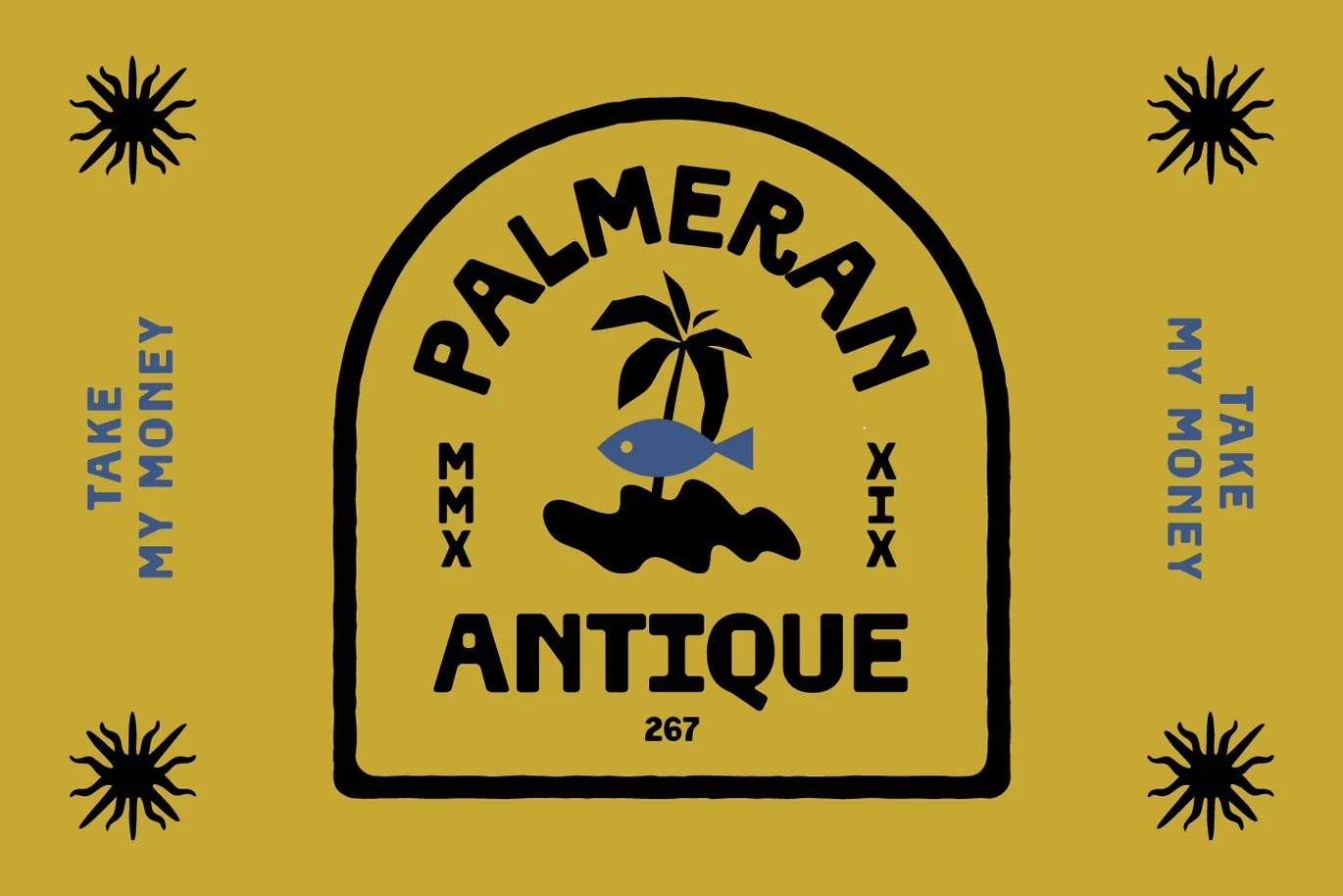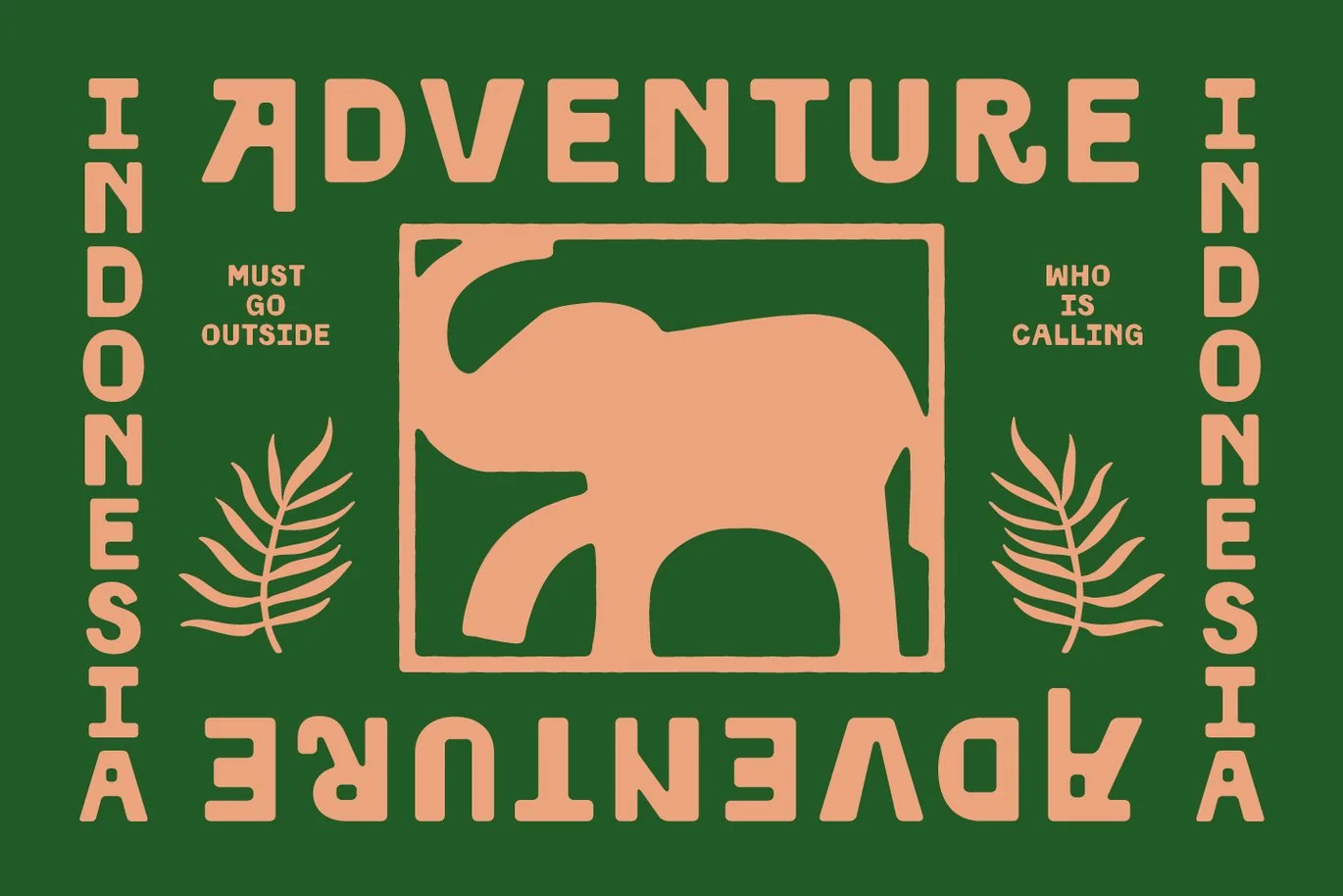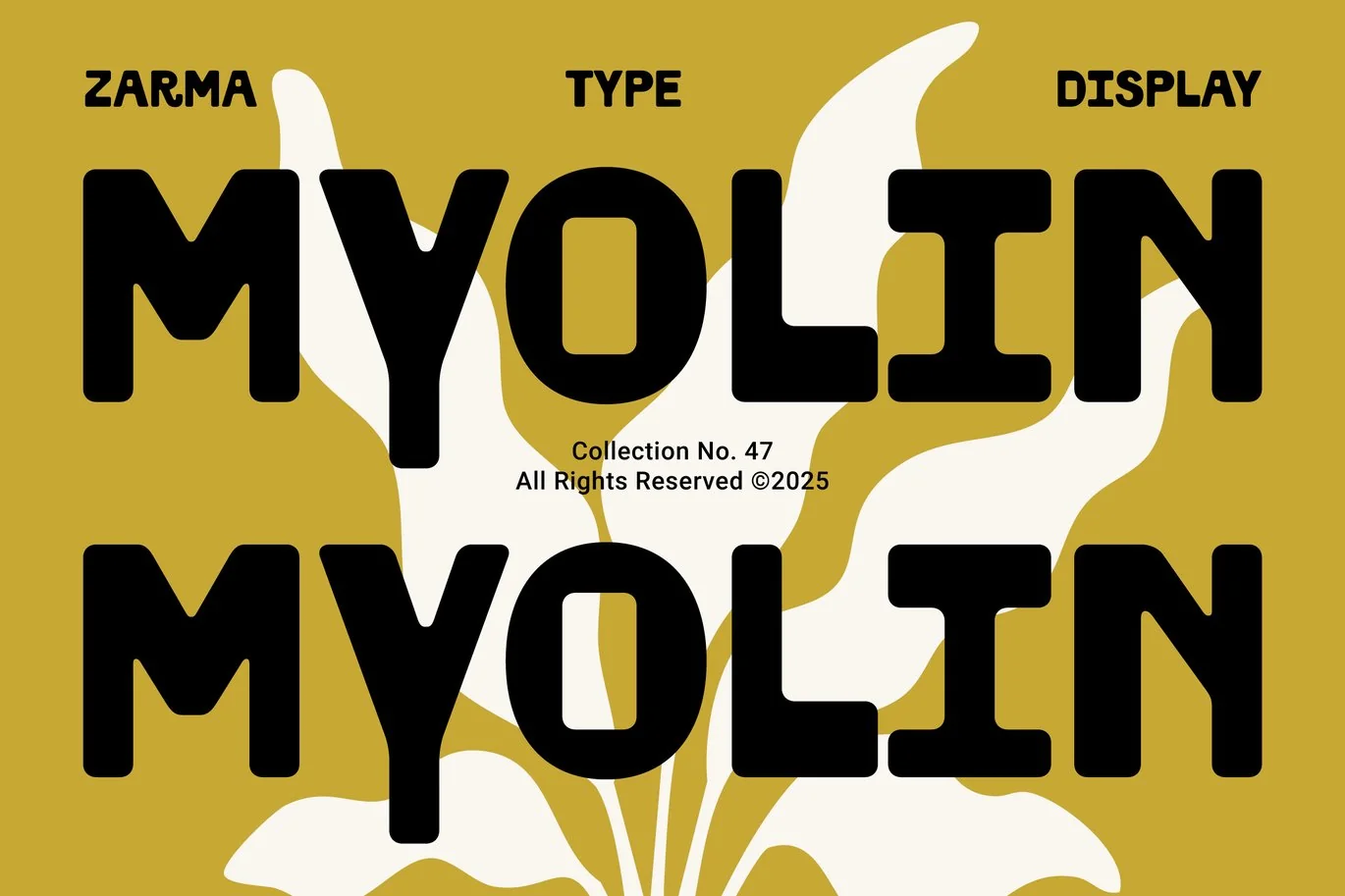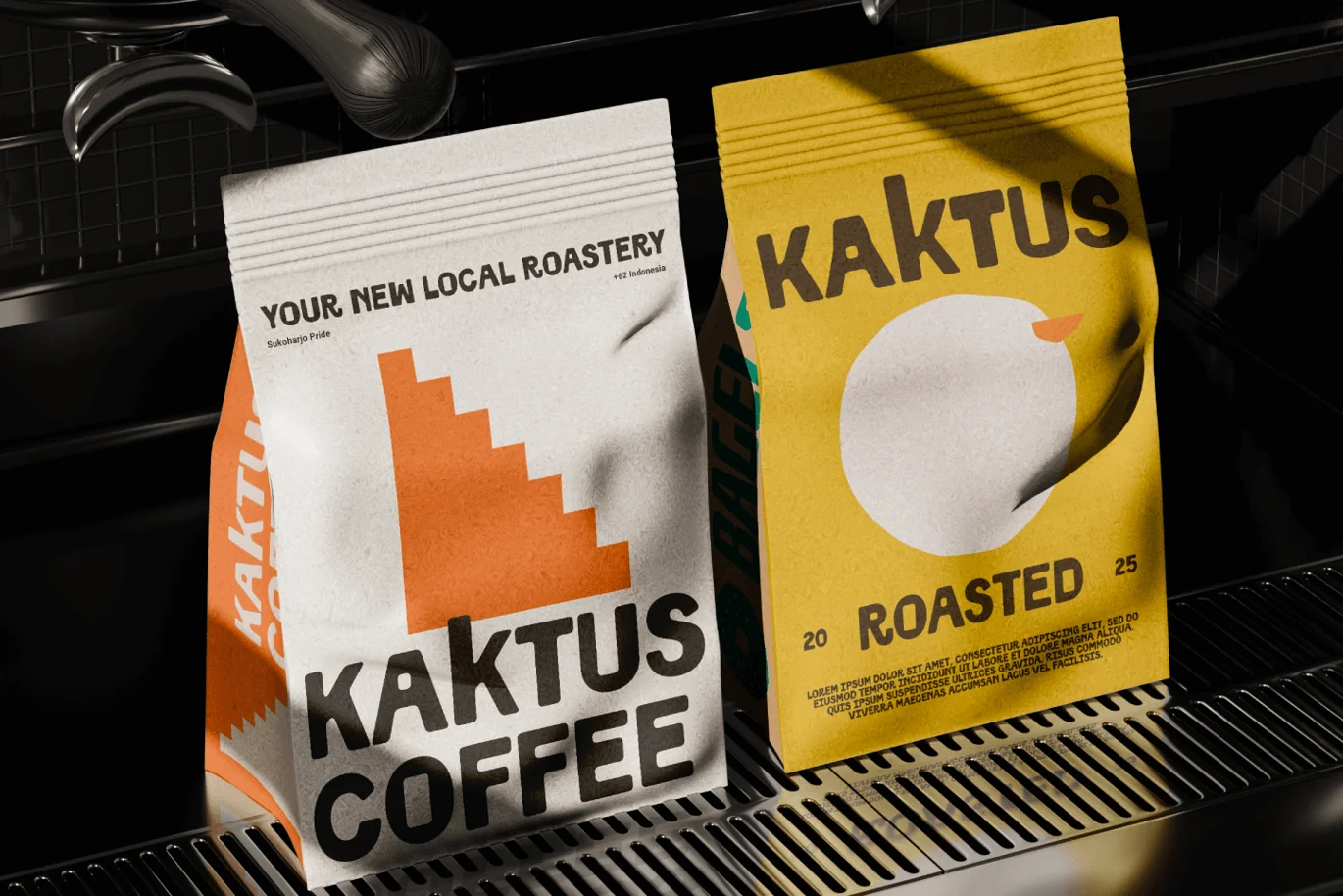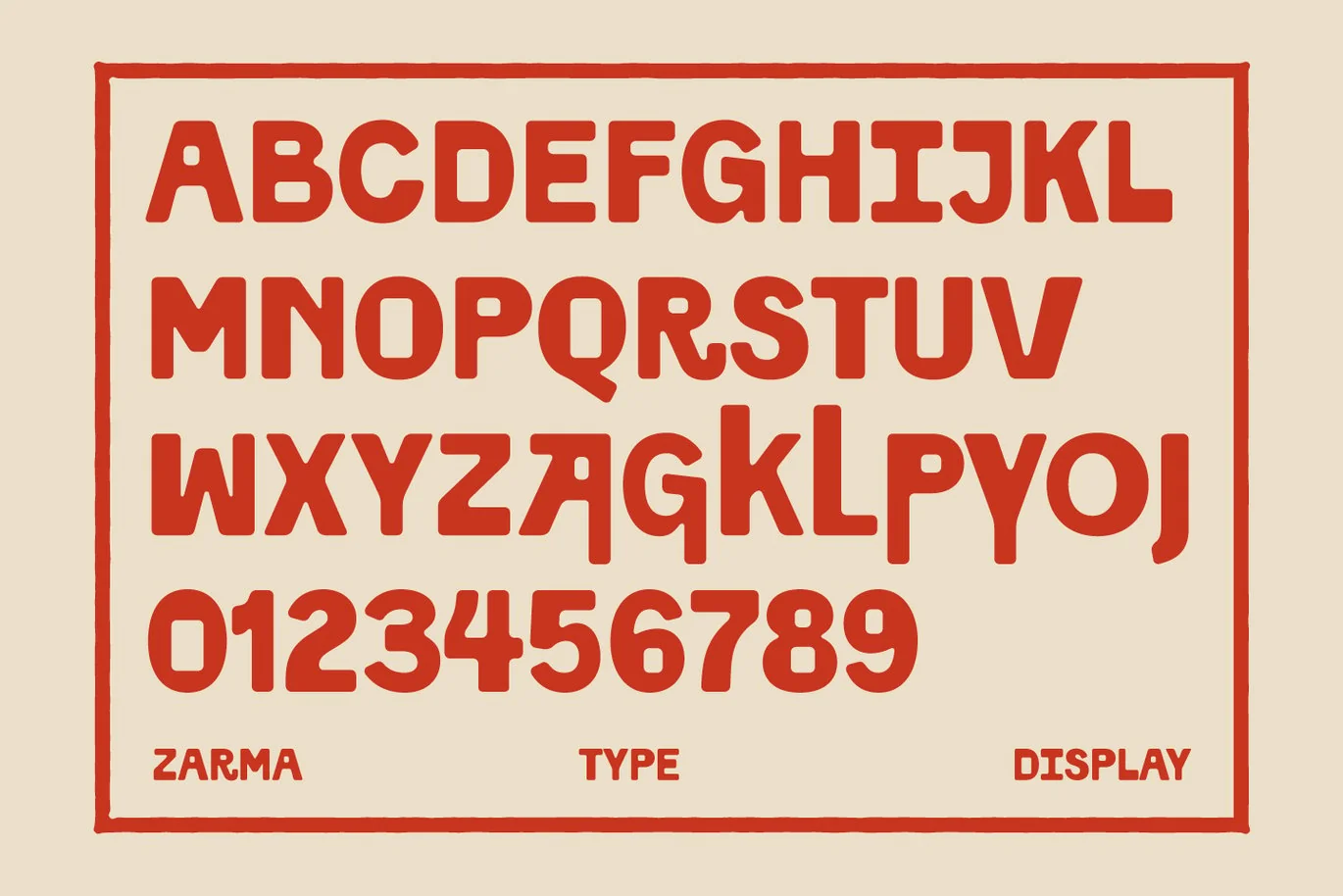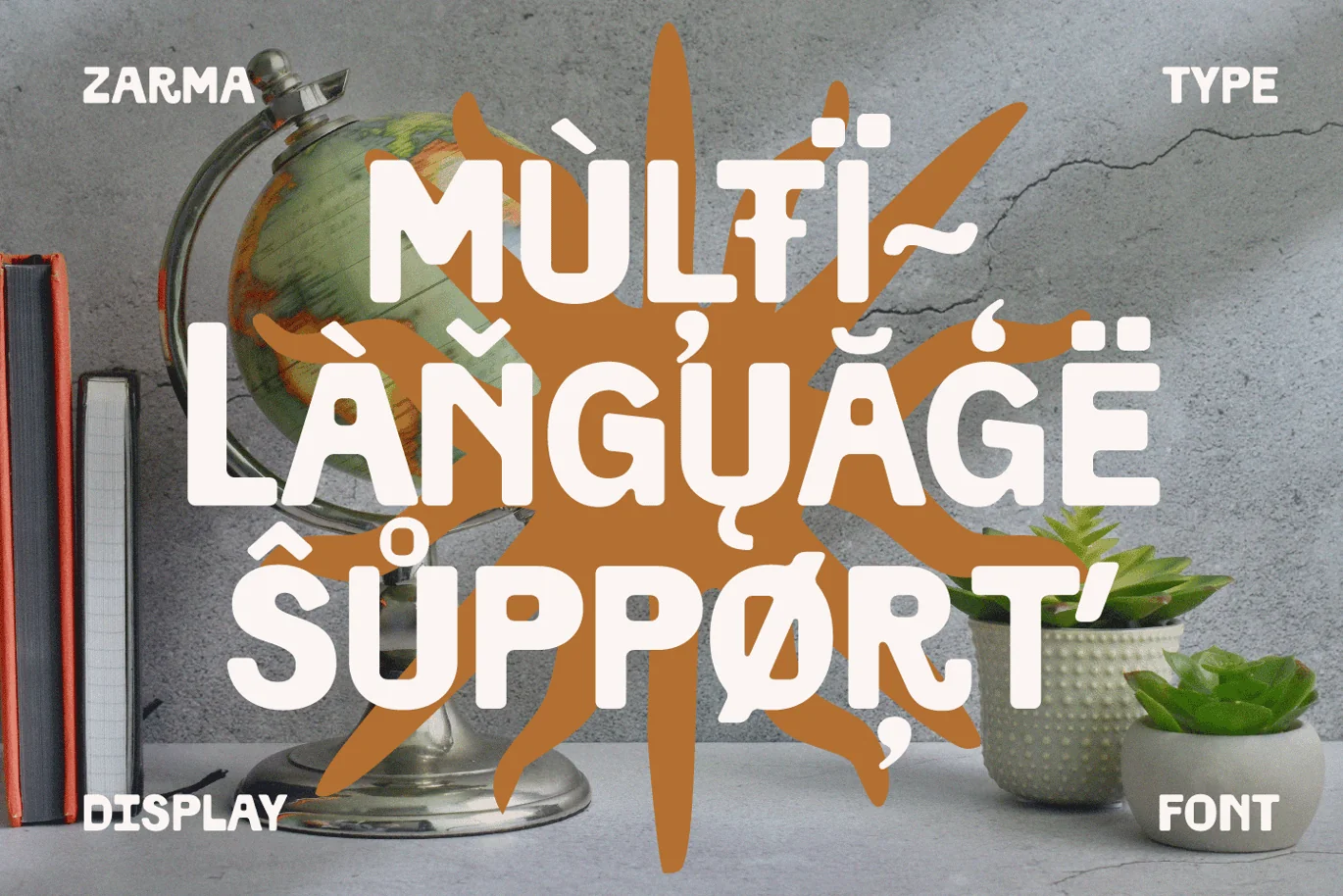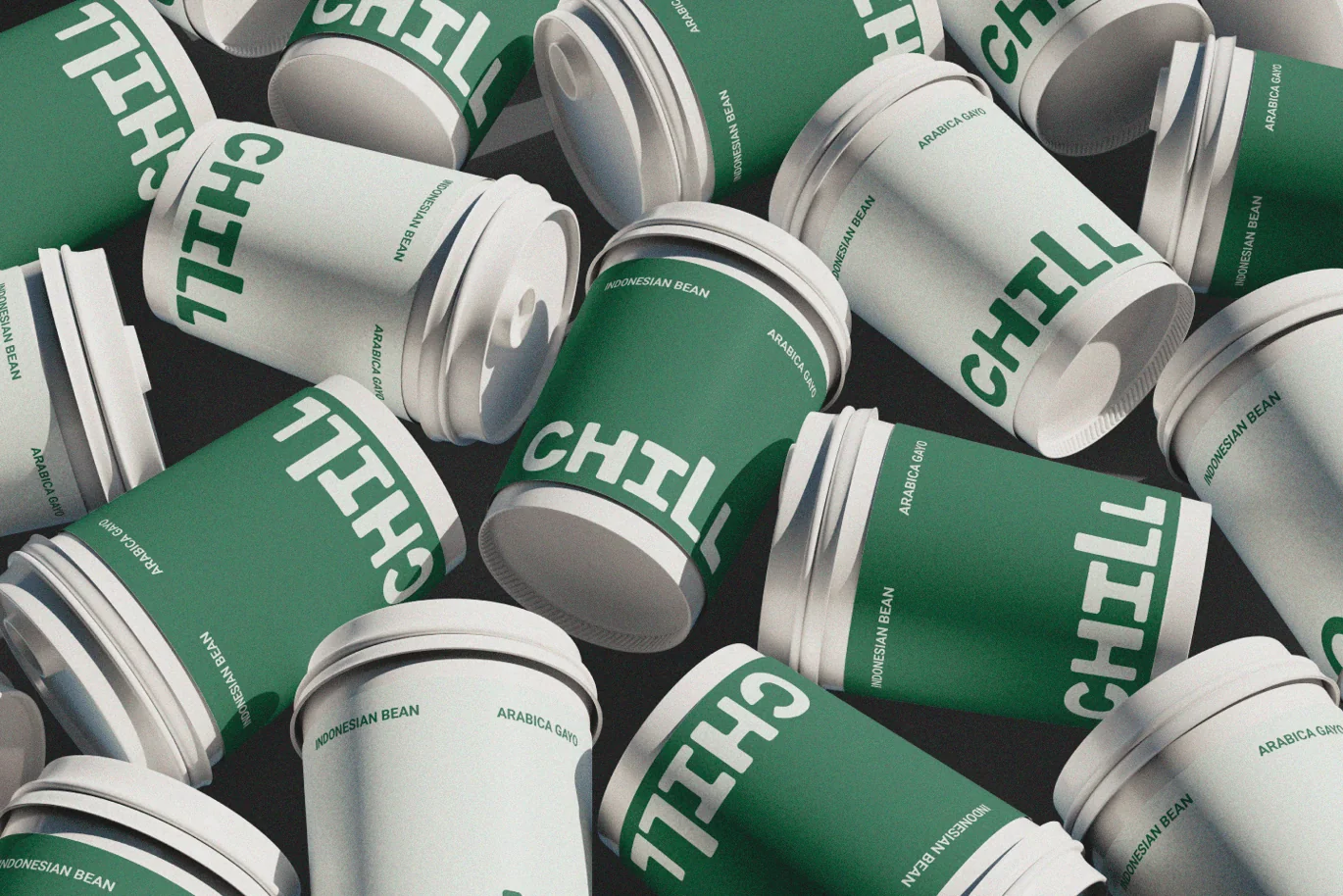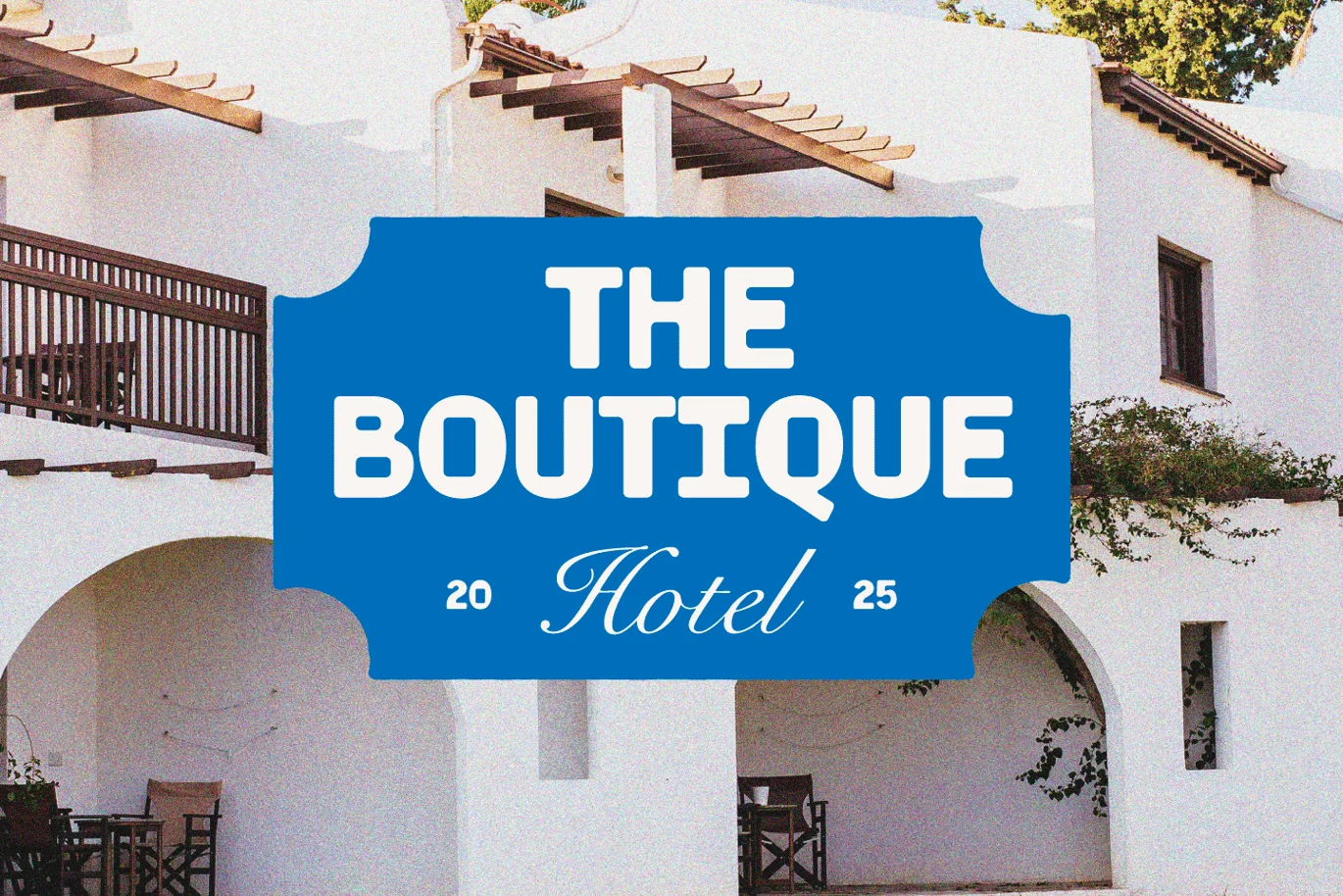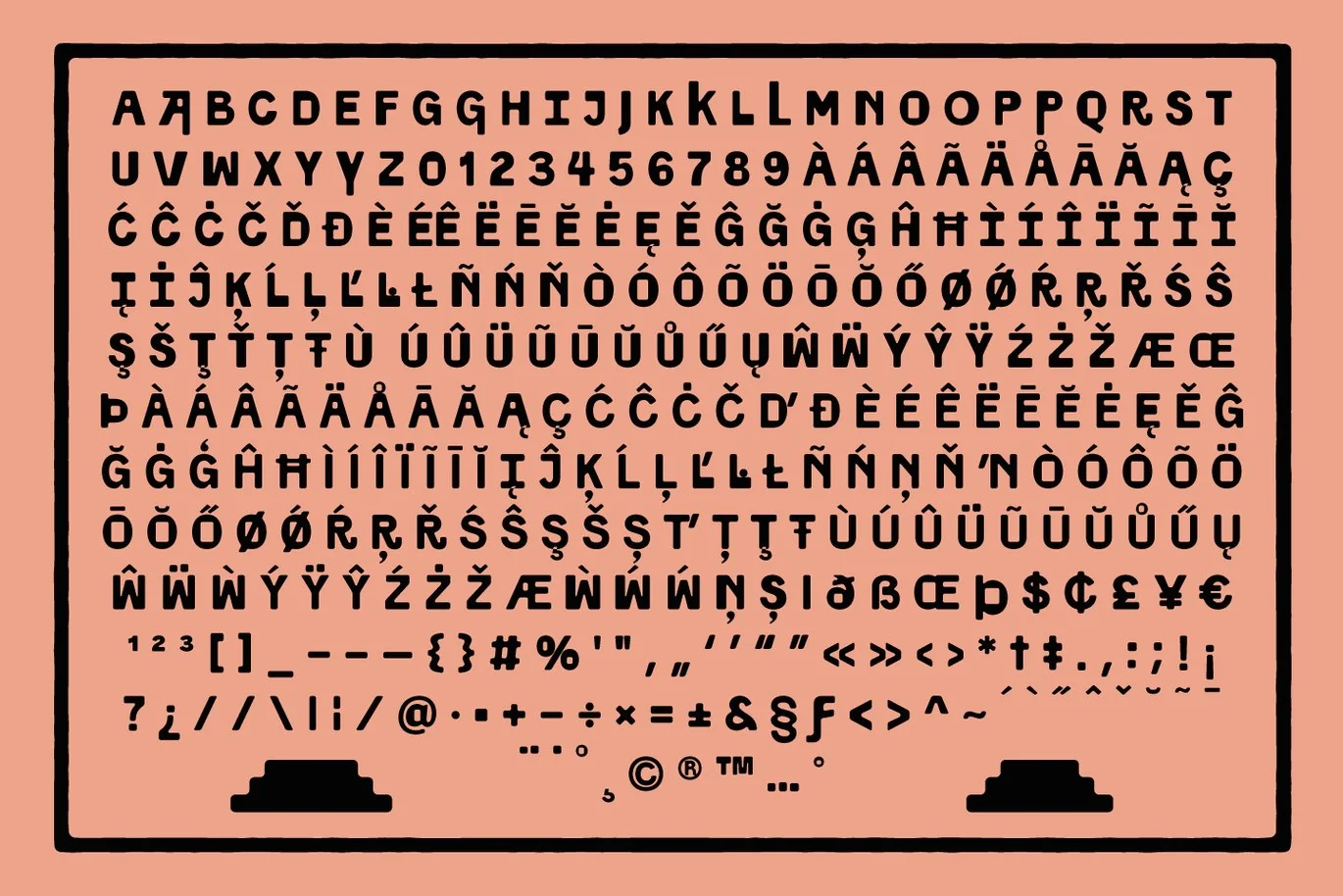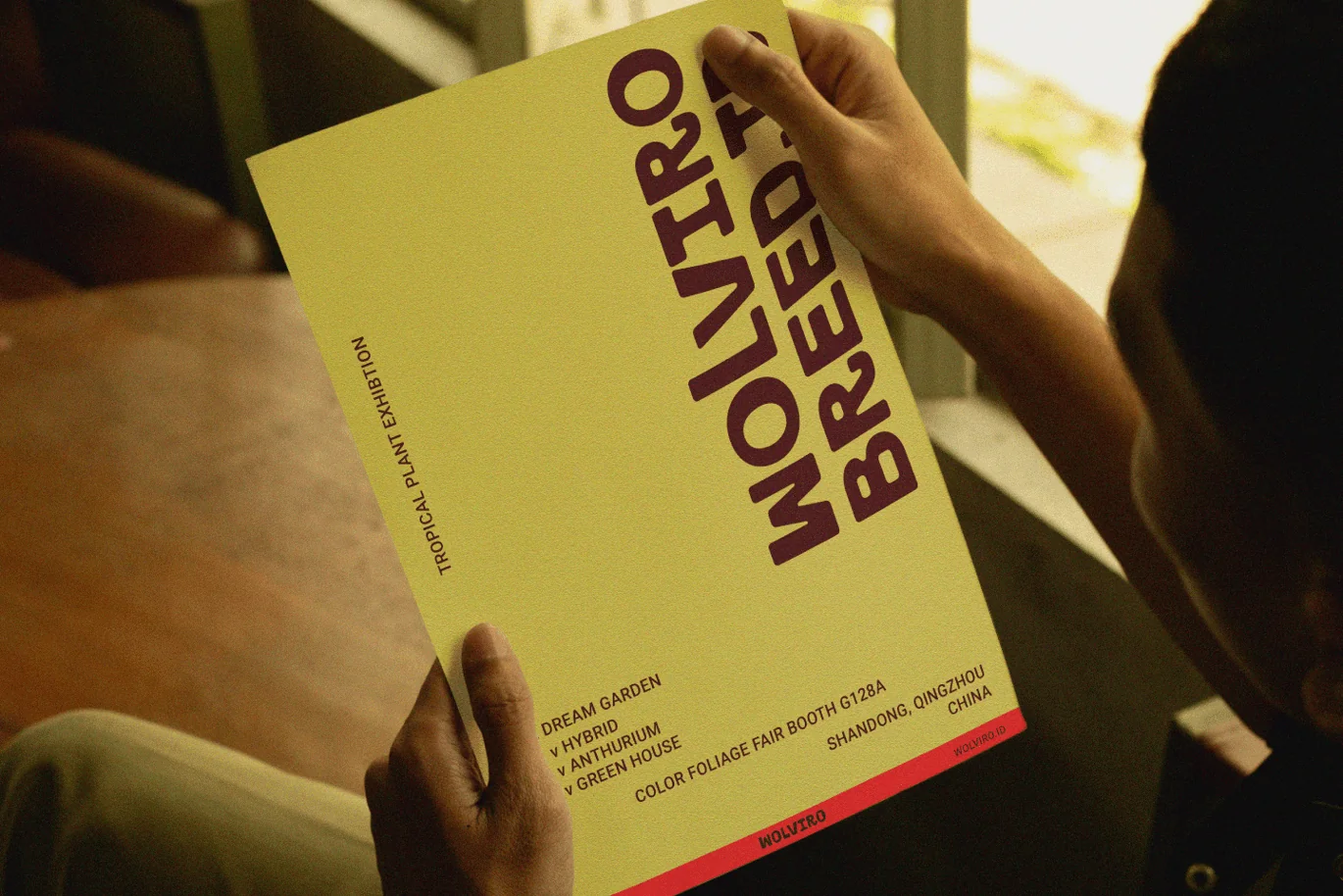
Myolin – Sans Serif Font
Myolin is a bold experimental display font with playful curves and distinctive letterforms, perfect for designers seeking a retro-modern statement. Its quirky yet solid structure makes Myolin ideal for branding, packaging, and editorial visuals that demand attention. Inspired by bold geometric styles with a contemporary twist, Myolin’s high-impact shapes bring personality and fun to every design application.
This typeface works beautifully across both print and digital platforms—from artisan coffee labels to boutique hotel signage and creative book covers. Myolin is also an excellent choice for Mediterranean minimalism style graphic design, a trend that’s currently gaining popularity for its clean, sun-drenched, and elegant aesthetic. With its strong presence and versatile usability, Myolin bridges vintage charm with modern aesthetics, making it a go-to choice for standout visual identities.
Perfect for:
- Branding and logo design
- Coffee packaging and food labels
- Editorial headlines and book covers
- Mediterranean minimalism style designs
- Creative business signage
- Retro-themed posters and merchandise